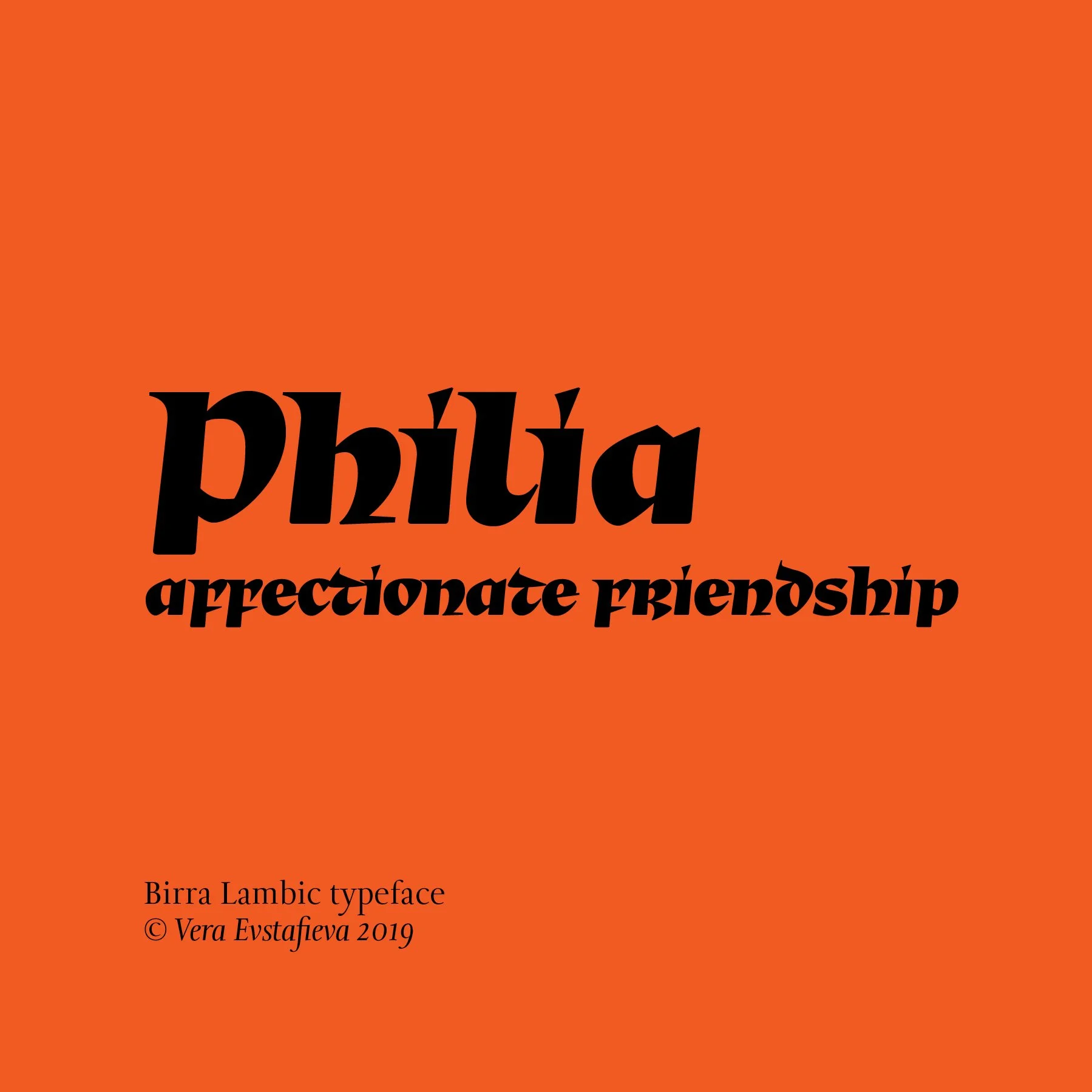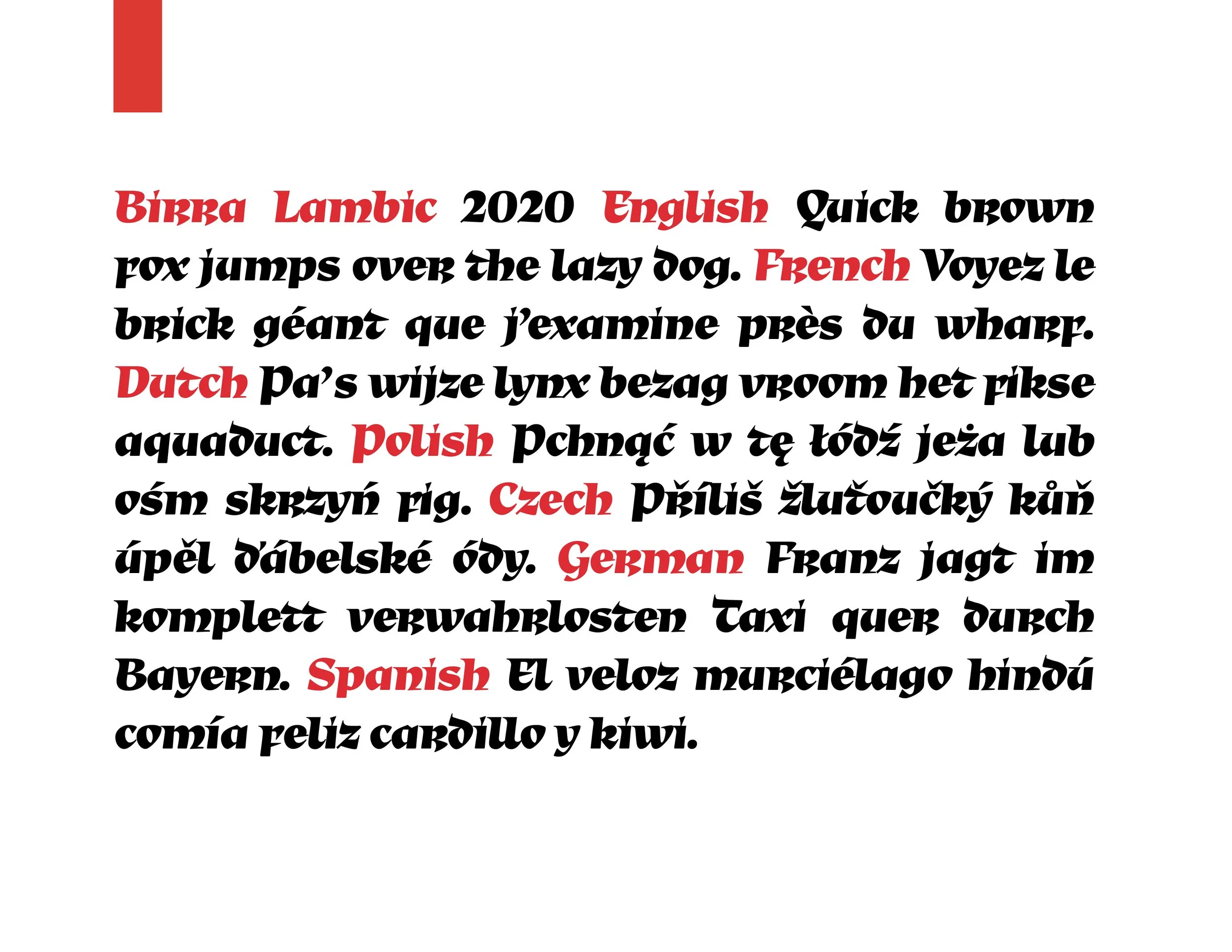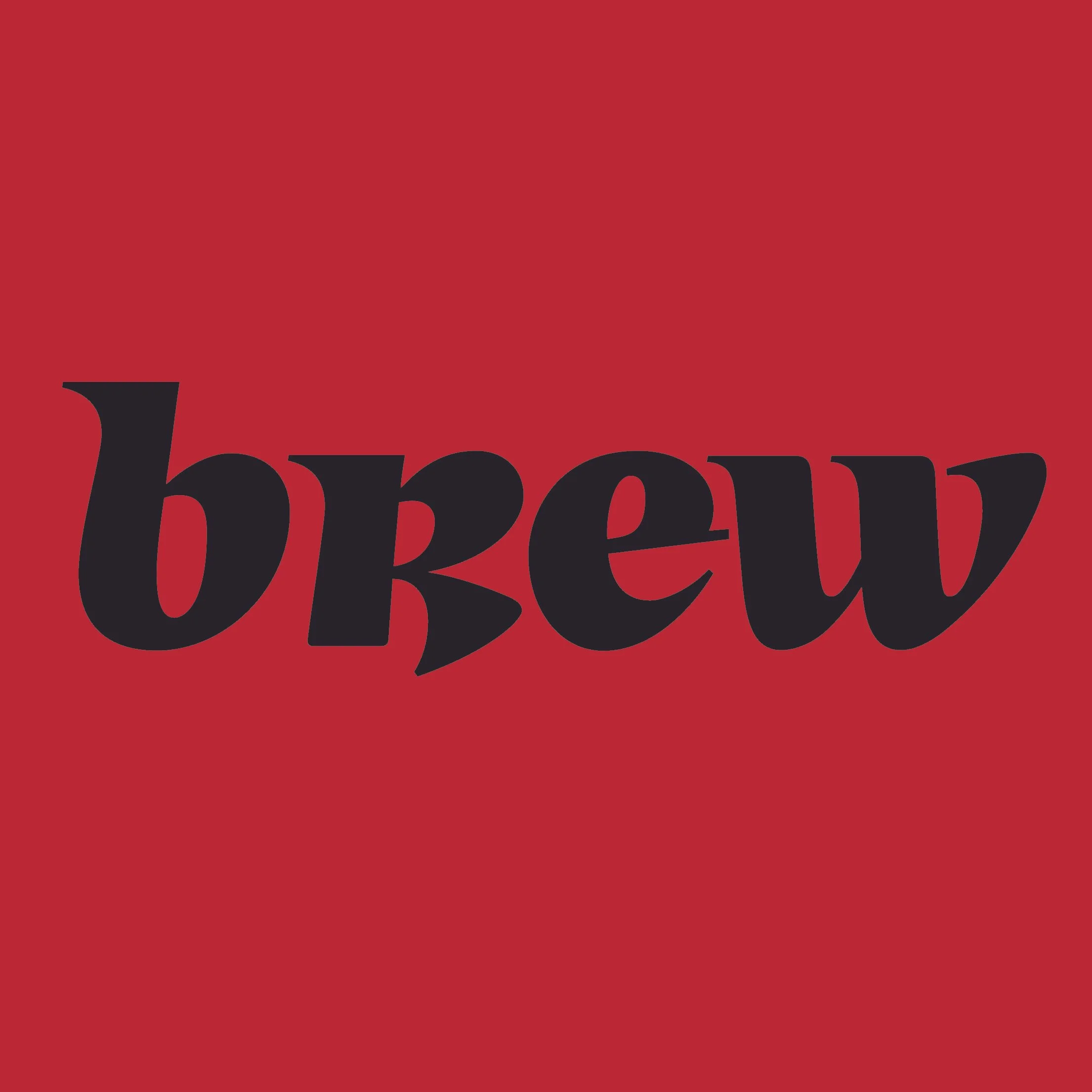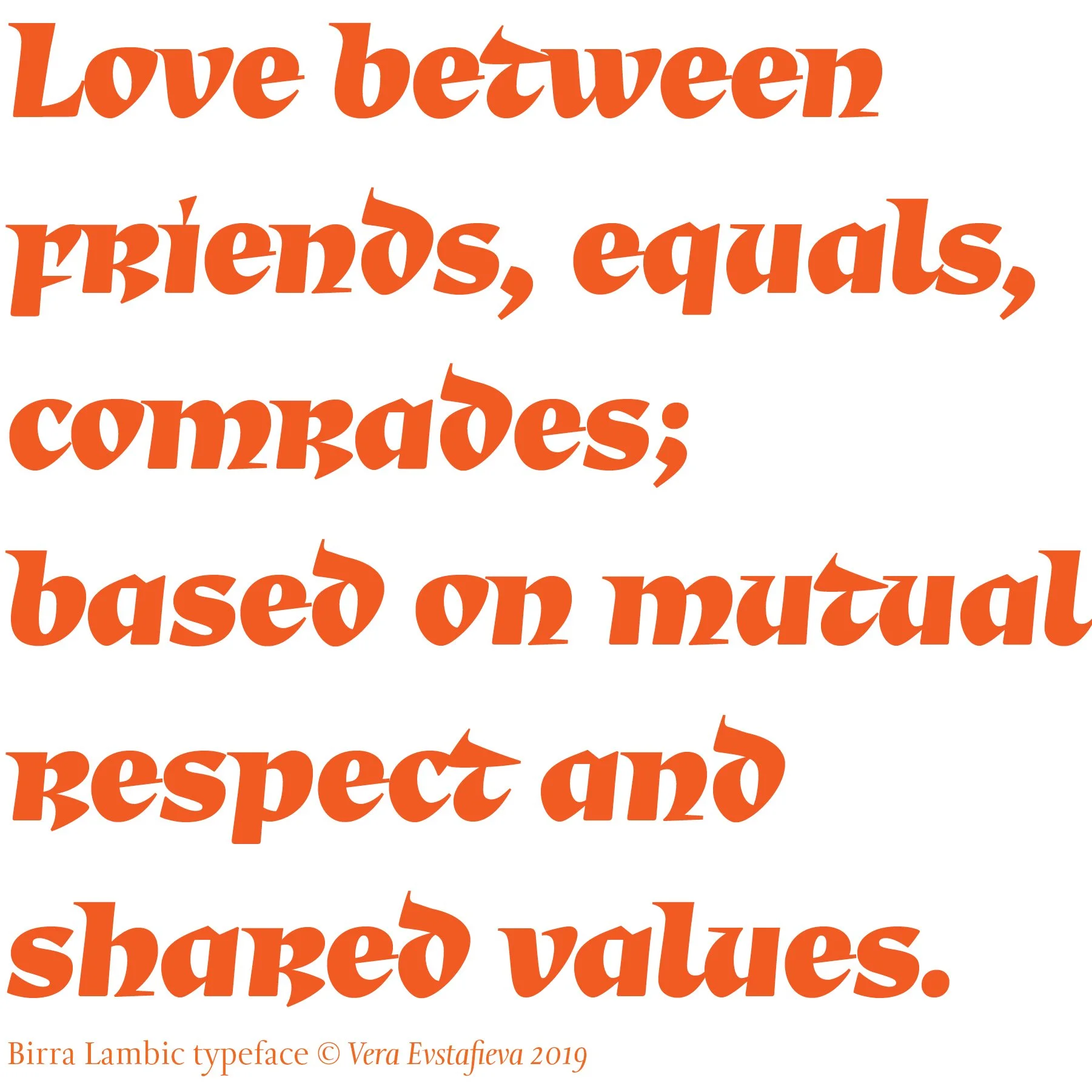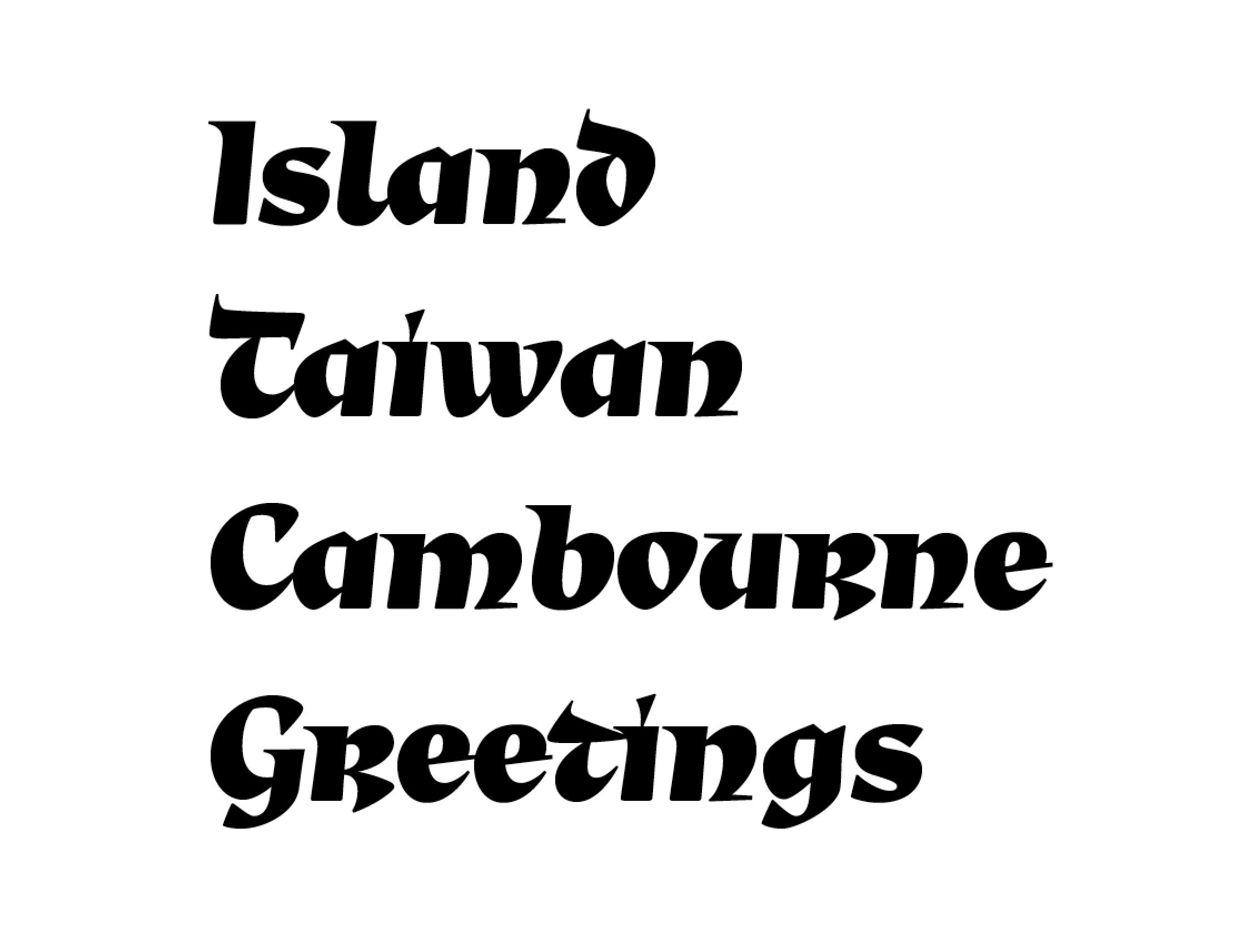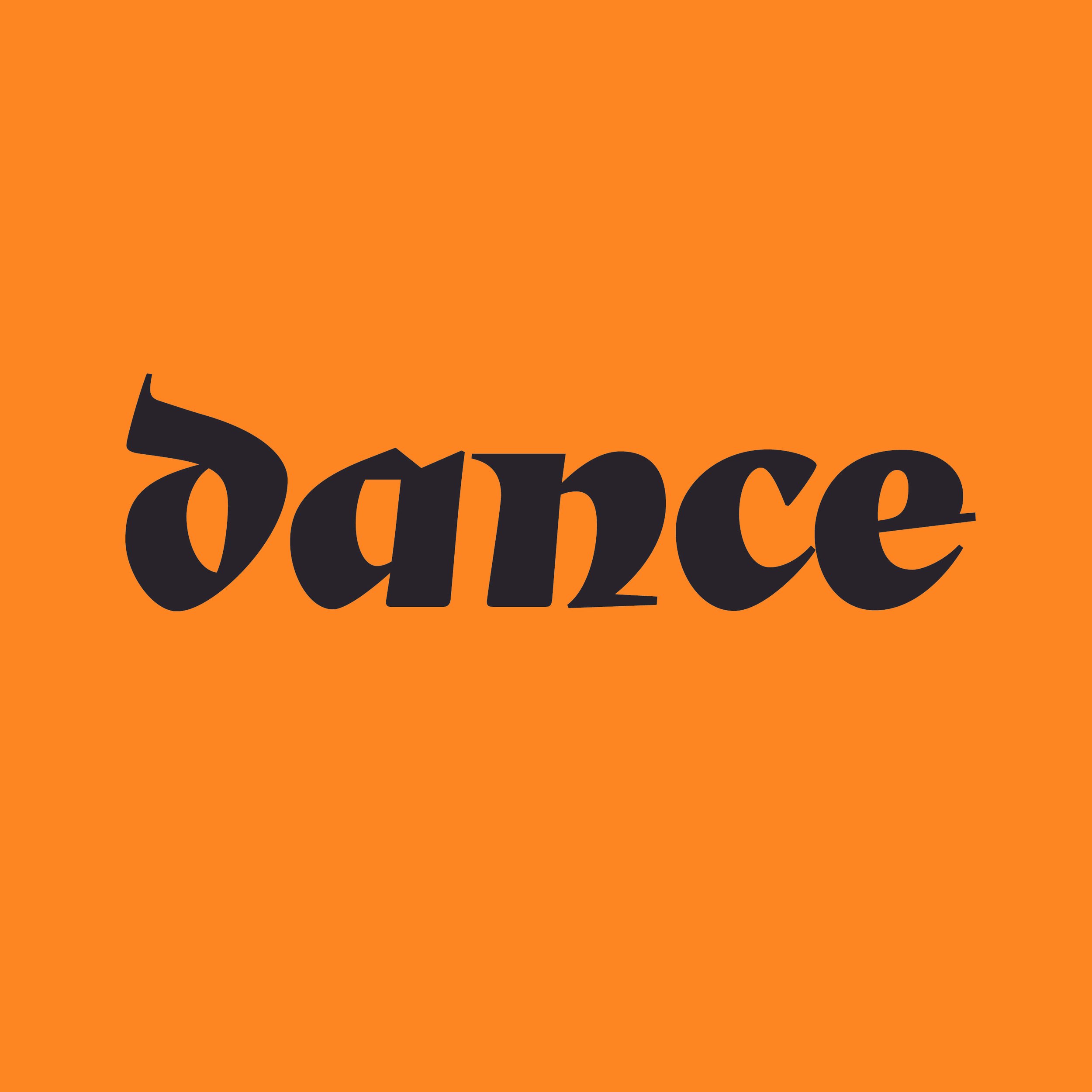
Birra Lambic was designed by Vera Evstafieva for the Birra Flight of fonts, commissioned by Darden Studio. 2020
Inspired by the tasting menus offered by craft breweries in North America as “flights”, each style of Birra is separately designed by guest designers. Vera was delighted to be invited to the project and the task to design a Display playful typeface inspired by a specific type of beer — that's quite an unusual commission, isn't it!
Vera’s design is a hybrid of Medieval hands and Italic, based on her studies with profound Irish calligrapher Denis Brown and her further experiments in brewing the new style.
Birra Lambic is a pan-European character with flavours of Ireland, Germany, Belgium (and many others — all together slightly slanted) with inherent traces of Medieval Europe.
Birra Lambic received the prestigious Award of Excellence from Communication Arts magazine in 2022.